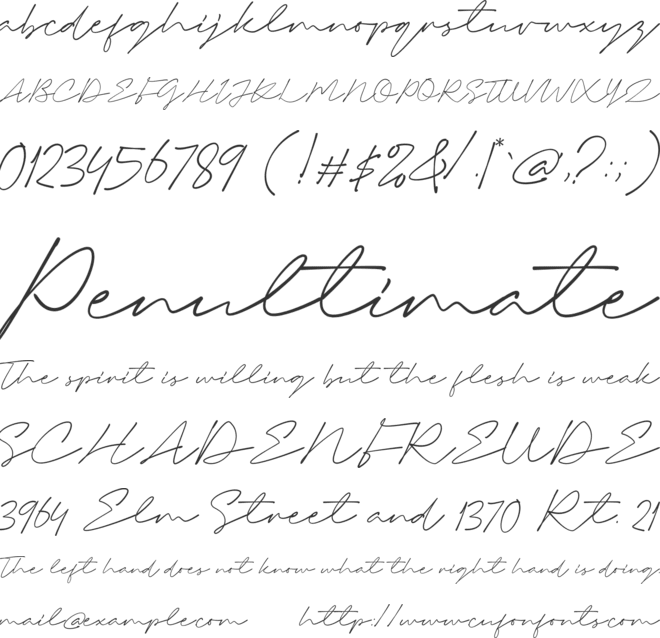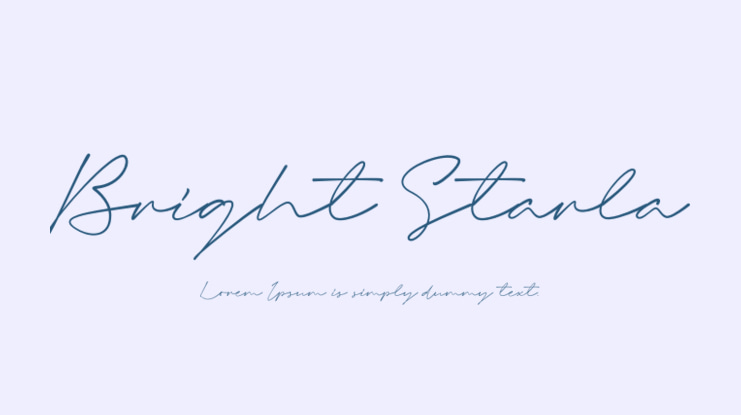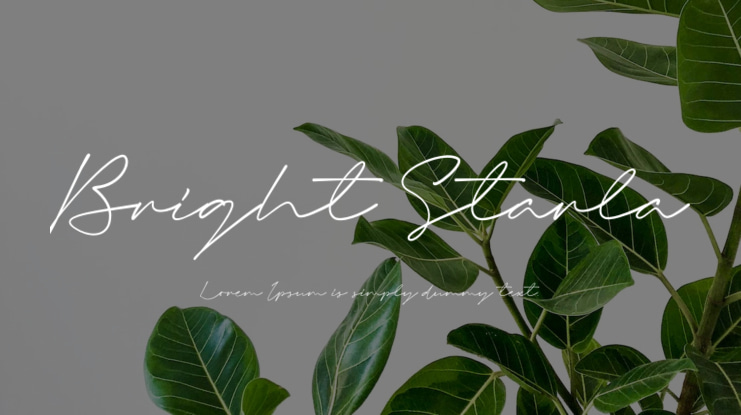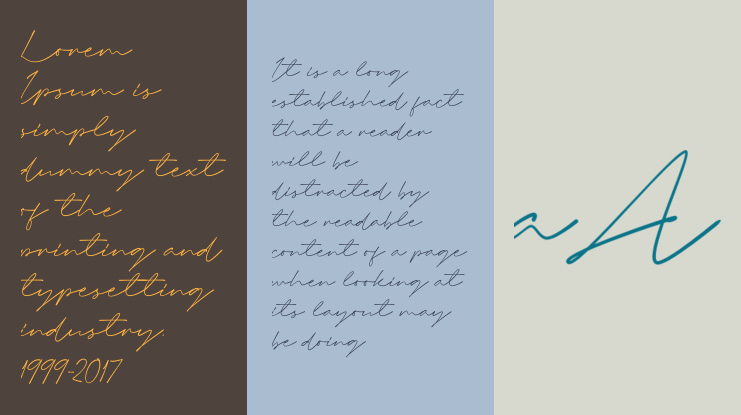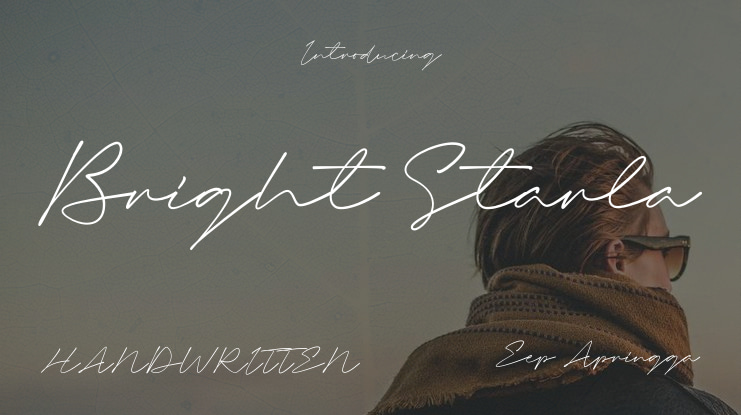
Bright Starla Font
This natural handwritten script exudes sophistication, grace, and refinement, making it an ideal choice for designs that benefit from a touch of elegance and luxury. Consider using it for projects such as wedding invitations, high-end fashion branding, or luxury product packaging.